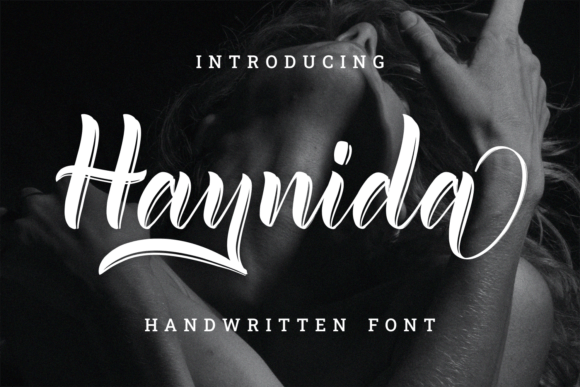
Discover the Magic of Hand-Drawn Typography
As designers, we’ve all been there – staring at a blank canvas, searching for the perfect font to bring our vision to life. It’s that moment when everything clicks, and you finally find the perfect match. For me, it was the moment I stumbled upon the Haynida Font. Its elegant brush script design immediately caught my eye, and I knew I had to learn more.
This beautiful font is more than just a pretty face – it’s a powerful tool for designers looking to add a personal touch to their projects. With its smooth, flowing letters, Haynida Font is perfect for creating warm and friendly designs that leave a lasting impression. From invitations to greeting cards, and even logos, this versatile font is sure to elevate your work to the next level.
Haynida Font Key Features
- Font Style: Script, Calligraphy, and Display Font
- Unique Characteristics: Unique, elegant, and intricate design; suitable for titles, headings, and decorative text
- Language Support: Supports multiple languages, including Latin, Cyrillic, and Greek scripts
Honest Review of Haynida Font
I’ve had the chance to work with the Haynida font, and overall, it’s a decent addition to any designer’s toolkit. ✨ Here are some of its strengths:
- Unique aesthetic: The Haynida font has a distinct, hand-drawn feel that can add a touch of personality to your designs.
- Good legibility: Despite its unique style, the font is still relatively easy to read, making it suitable for a wide range of applications.
- Large character set: The font includes a comprehensive set of characters, including ligatures and alternates, which is a nice bonus.
- Weight and spacing inconsistencies: The font’s weight and spacing can be inconsistent across different styles, which may require some manual adjustments.
- Lack of OpenType features: While the font has some basic ligatures and alternates, it doesn’t support more advanced OpenType features like contextual substitution or stylistic sets.
Overall, the Haynida font is a solid choice for designers looking for a unique, hand-drawn aesthetic. While it may not be perfect, its strengths outweigh its limitations, and it’s definitely worth considering for your next project.
Tips for Getting the Most Out of Haynida Font
Use Haynida Font for creative, handwritten-style text elements.
Use it for titles, headings, and emphasis in your designs.
Combine Haynida Font with other fonts for a unique, eclectic look.
Haynida Font is ideal for:
Food and drink labels
Creative marketing materials
Handwritten-style journaling and quotes.
Alternatives to Haynida Font for Designers
Great Vibes is a modern calligraphy font ideal for creating a relaxed and friendly atmosphere. It’s perfect for use in logos, headings, and quotes where a casual, handwritten feel is desired.
Compared to Haynida Font, Great Vibes has a more casual and expressive feel, making it suitable for a wide range of creative projects.
Pacifico is a beautiful, elegant script font that works well for creating a sense of sophistication and luxury. It’s ideal for use in headings, titles, and branding where a high-end feel is required.
Pacifico has a more refined and polished feel compared to Haynida Font, making it suitable for projects that demand a touch of elegance.
Alex Brush is a handwritten script font with a personal, artistic feel. It’s perfect for use in quotes, headings, and titles where a unique and creative touch is desired.
Alex Brush has a more delicate and expressive feel compared to Haynida Font, making it suitable for projects that require a touch of personality.
Dancing Script is a beautiful, elegant script font that works well for creating a sense of movement and energy. It’s ideal for use in headings, titles, and branding where a dynamic feel is required.
Dancing Script has a more fluid and dynamic feel compared to Haynida Font, making it suitable for projects that demand a sense of excitement and movement.
Q: Does Haynida Font include any special features or languages?
Yes, the Haynida Font includes a wide range of special features, including ligatures, swashes, and ornaments. It also supports multiple languages, including Latin, Cyrillic, and Greek scripts. This makes it an ideal choice for designers working on international projects or creating multilingual content.